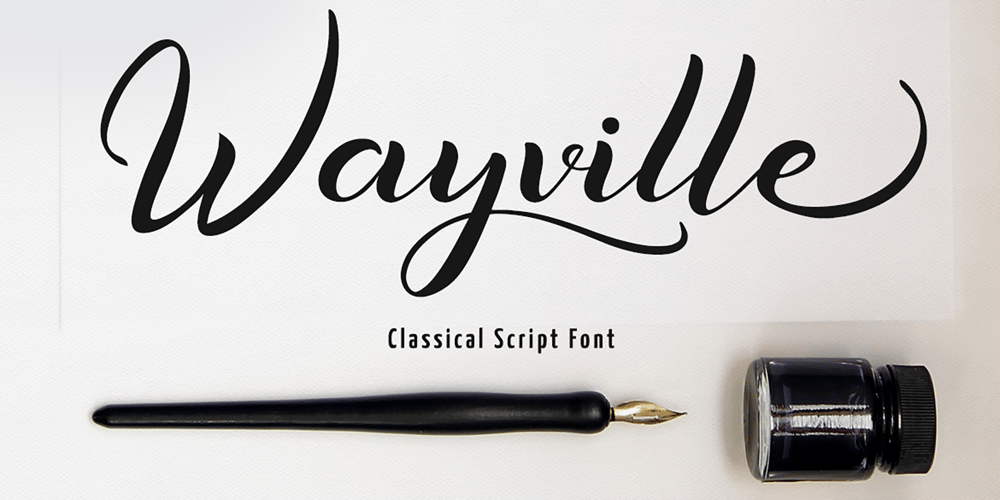
Wayville Font Family was designed by Tezar Tantular and published by Keristyper Studio. Wayville contains 1 styles and family package options. Wayville is a casual script font, with clean high contrast stroke, slanted and fun character. This font is good for logo design, Social media, Movie Titles, Books Titles, short text even a long text letter, and good for your secondary text font with sans or serif.Featured: Standard Uppercase &Lowercase Numeral & Punctuation Multilingual : ä ö ü Ä Ö Ü ß ¿ ¡ Alternate &Ligature PUA encoded We recommend programs that support the OpenType feature and the Glyphs panel such as Adobe applications or Corel Draw. so you can use all the variations of the glyphs. Hope you enjoy our fonts!